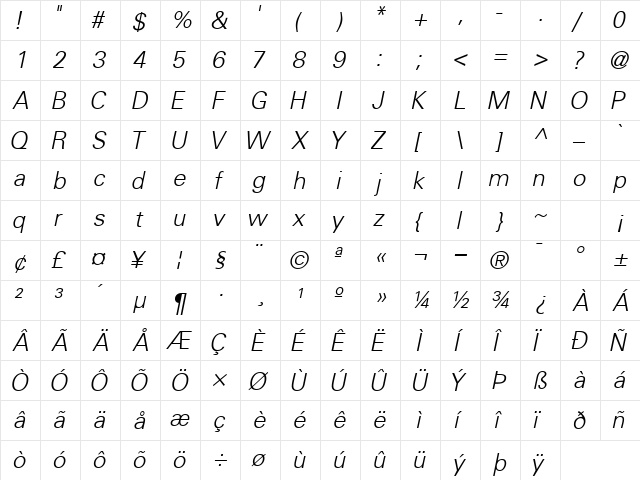
NovaLightSSK Italic Font Preview
Design Context for NovaLightSSK Typeface
NovaLightSSK takes a measured approach to typography — its balanced proportions and neutral character make it a reliable workhorse for both digital and print work. The dynamic lean of this cut emphasises speed and emphasis in any layout. The delicate stroke weight brings airiness and refinement to layouts.
Pro Tip: Try NovaLightSSK for annotation and caption copy alongside an upright companion — the contrast in angle creates a dynamic but ordered typographic system.